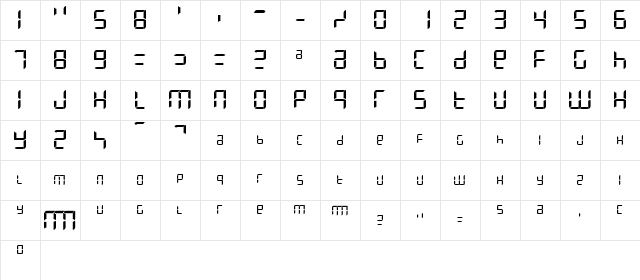
Letters Laughing by Quantized and Calibrated
Letters Laughing is a composed and adaptable typeface that performs quietly and consistently across a wide range of design contexts.